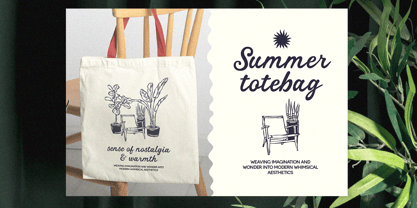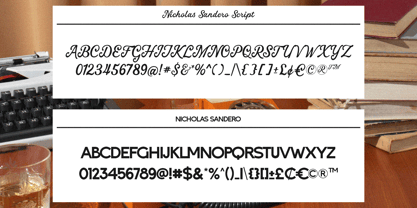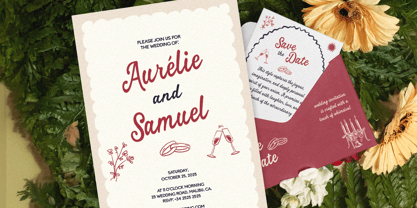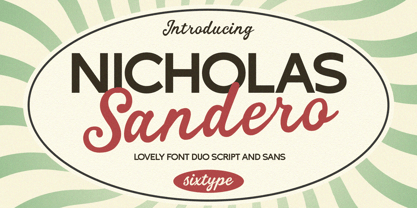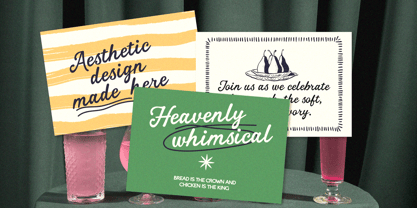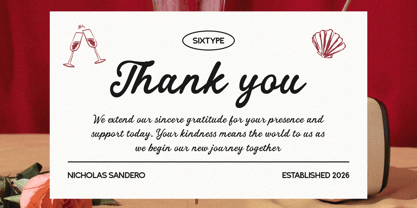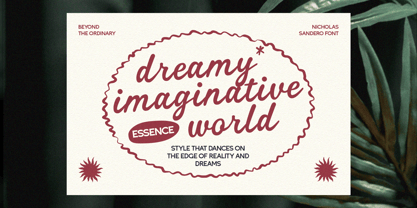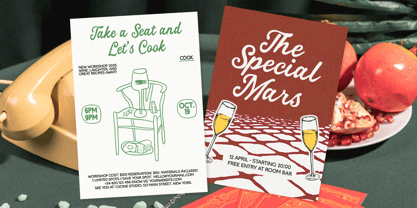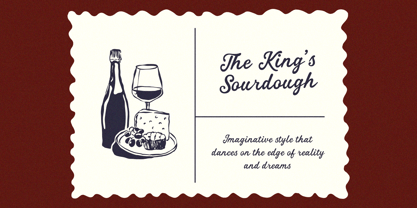
Nicholas Sandero
Nicholas Sandero is a captivating font duo that seamlessly blends a flowing vintage-inspired script with a clean geometric sans serif, making it an ideal choice for both nostalgic and contemporary designs. The script showcases smooth connections, soft curves, and a handcrafted feel, while the sans serif adds balance, clarity, and modern structure. Together, they create a warm, whimsical, and approachable aesthetic, perfect for a variety of applications including branding, packaging, wedding stationery, invitations, logos, social media graphics, café menus, lifestyle products, posters, and editorial projects. With its retro flair, friendly personality, and exceptional readability, Nicholas Sandero empowers designers to craft eye-catching compositions that are both timeless and inviting.